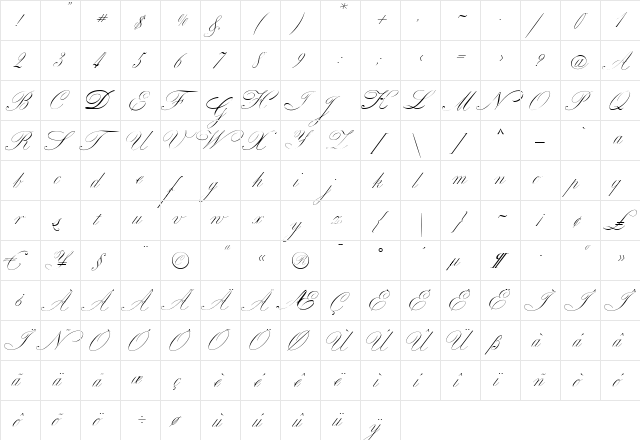
Venski sad One Medium
| Foundry | Alexandra Gophmann |
| Designer | Gophmann A.L. |
Design Context for Venski sad One Typeface
Venski sad One is a composed and adaptable typeface that performs quietly and consistently across a wide range of design contexts.